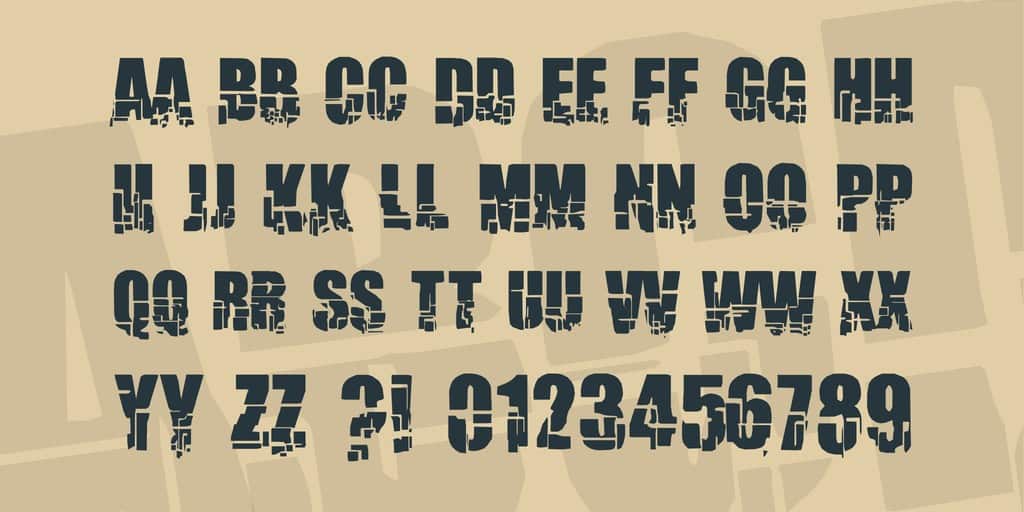
breakaway
Explore the Dynamic Design of Breakaway Font
Breakaway Font, crafted by renowned designer Alex Smith in 2022, showcases a strikingly modern aesthetic that captures attention. Its unique letterforms and dynamic curvature make it ideal for various applications, from eye-catching posters to impactful branding. Whether you’re working on digital media or print, this font seamlessly blends style with legibility, ensuring your message stands out.
Key Features and Formats of Breakaway Font
The Creative Journey Behind Breakaway Font
Inspired by urban architecture and contemporary art, Breakaway Font embodies a fusion of modernity and functionality. Alex Smith’s innovative approach to font design resulted in a typeface that not only stands out visually but also provides excellent readability across different platforms and mediums.
Versatile Applications for Breakaway Font
Breakaway Font excels in settings that require modern flair and creativity. Ideal for branding projects, product packaging, social media graphics, and event flyers, it brings a contemporary edge to any design. Harness the power of Breakaway Font to elevate your visual communications.